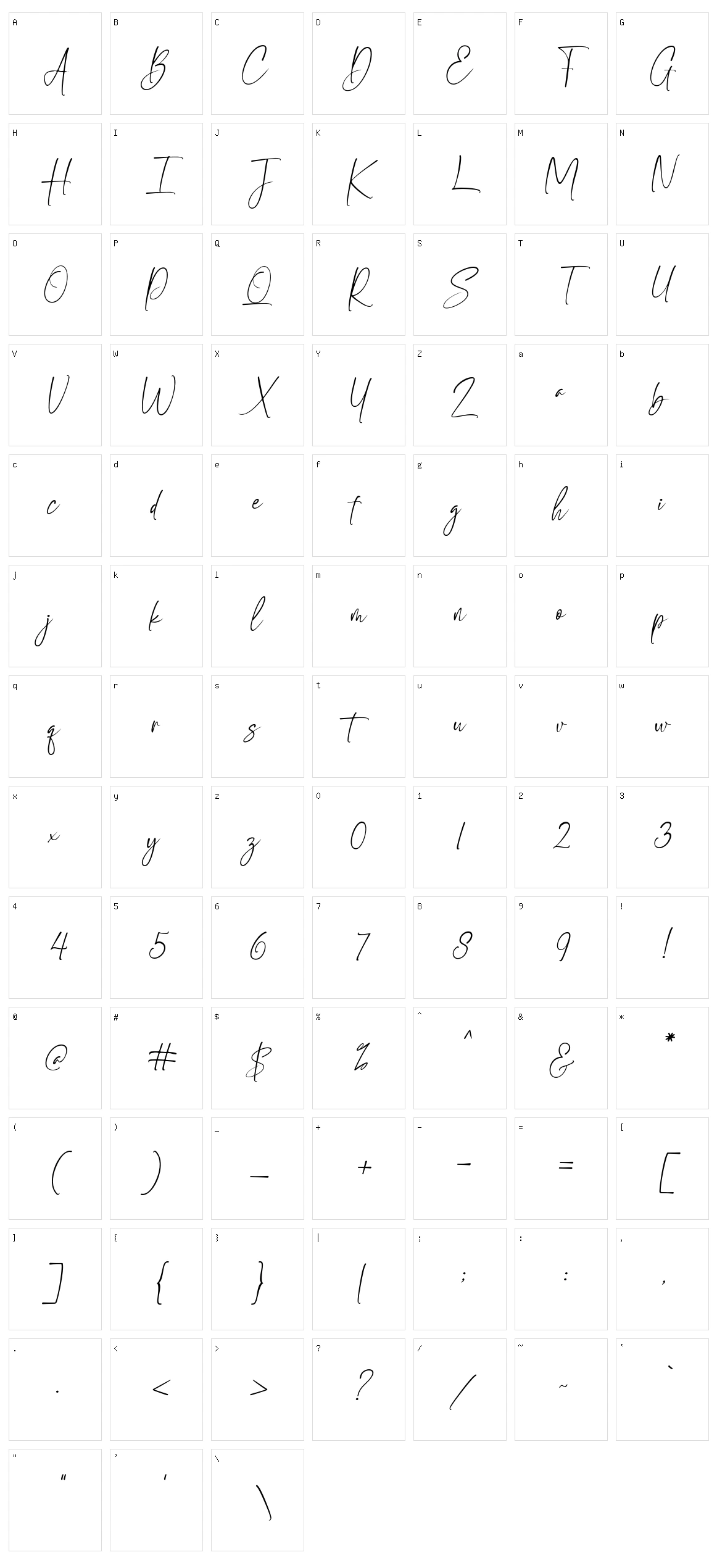
The free font Classic Girl is carefully designed by Romi Rahmadi, showcasing a thoughtful balance of creativity and usability and falls under the Script font style. When you download the ZIP file, it contains only 76.45 KB of font files, making it lightweight and quick to download. Please review the license details below to understand permitted usage and distribution rights. If license information is not available, we recommend using this font for personal projects only or contacting the author directly for commercial usage permissions.